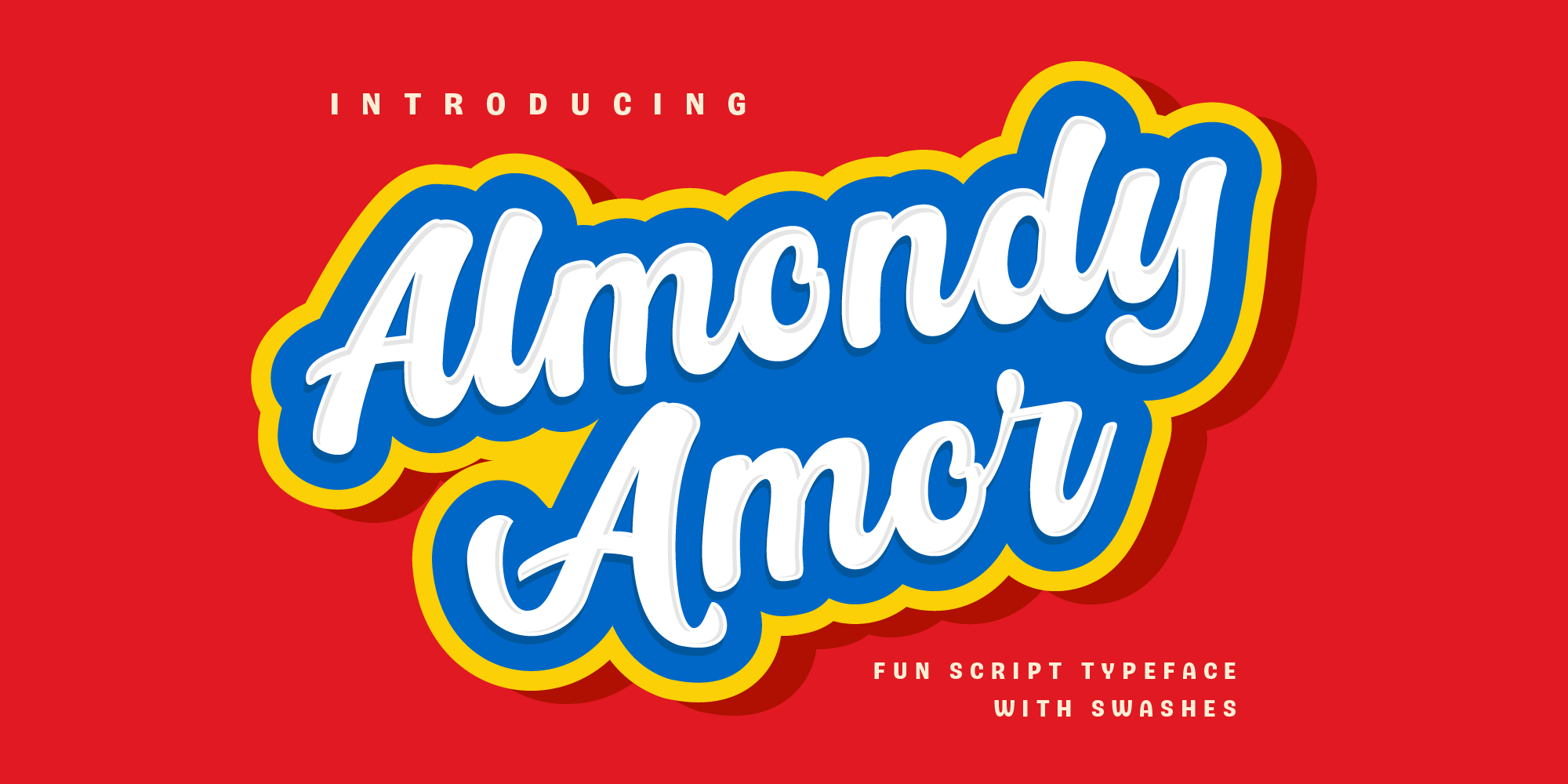
Almondy Amor Font is ideal for romantic bakery branding, sweet confectionery packaging, artisanal dessert menus, cozy café signage, wedding cake labels, gourmet chocolate marketing, valentine's pastry promotions, intimate bistro materials, handcrafted candy branding, and delightful projects that celebrate the sweet romance of culinary love and artisanal confection with warm, inviting charm.
What makes Almondy Amor Font so exciting is its perfect blend of sweet romanticism with artisanal craftsmanship that evokes the warmth of freshly baked goods and tender loving care. This typeface captures the essence of culinary romance through soft, rounded letterforms with gentle curves that suggest almond petals and sweet embrace while maintaining excellent readability for contemporary food service and confectionery applications that require both elegance and approachability.
Almondy Amor Font family encompasses multiple sweet variations: Regular, Bold, Light, Creamy, Sugary, Delicate, Rich, and Sweet versions. Each style maintains the font's inherent romantic sweetness while offering different levels of tenderness and confectionery appeal, providing designers with comprehensive tools for creating authentic bakery aesthetics that resonate with customers seeking comfort food and romantic culinary experiences.
The sweet romance of Almondy Amor Font Free Download makes it exceptionally valuable for food service and confectionery industries focused on artisanal quality. This font successfully communicates warmth and culinary passion, making it perfect for bakeries and confectioners that want to connect with customers through emotional food experiences and romantic indulgence. Its charming character works beautifully across both digital menu platforms and artisanal packaging materials, while its distinctive sweet aesthetic creates immediate appetite appeal among audiences who appreciate handcrafted confections and romantic dining.